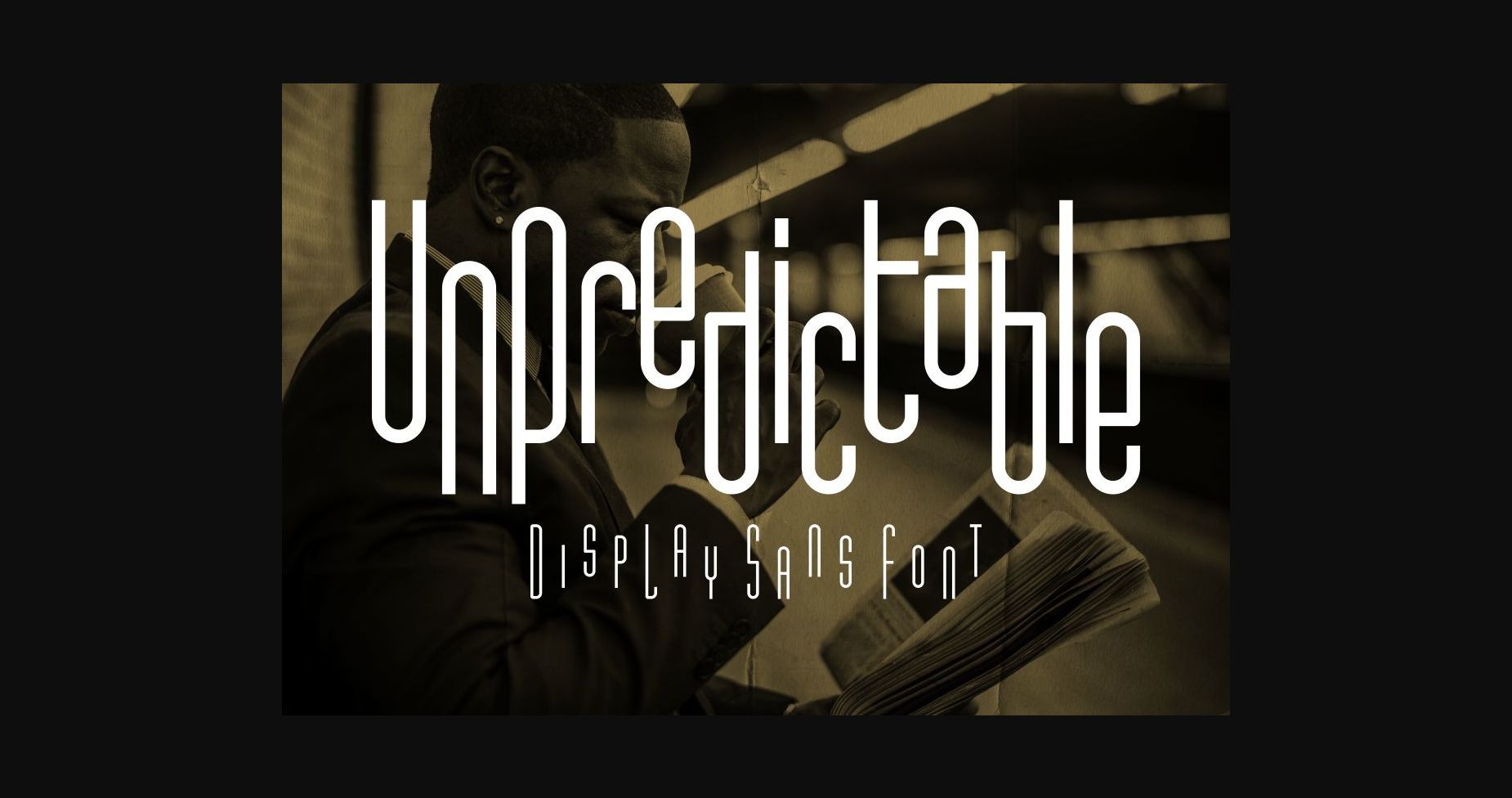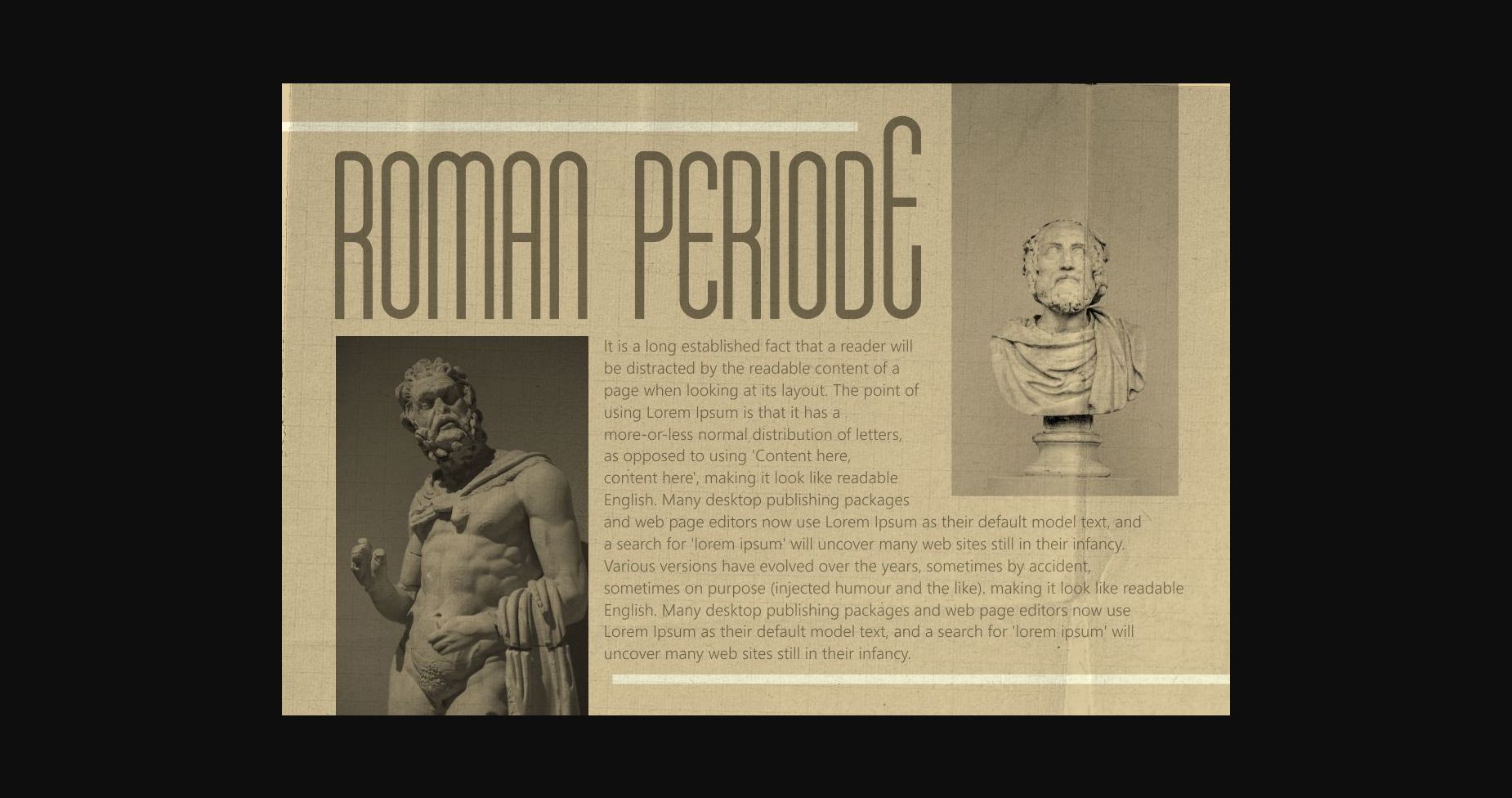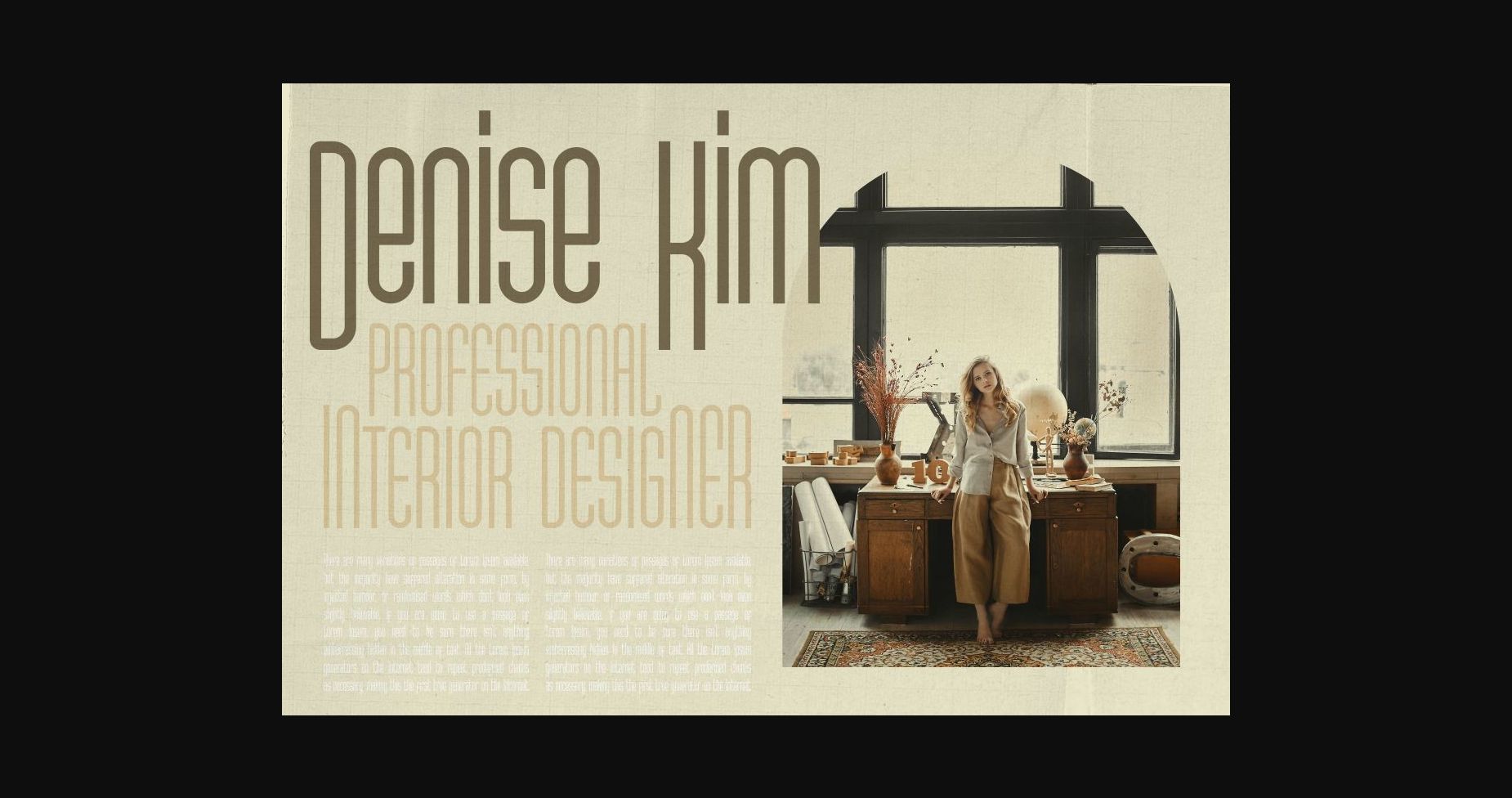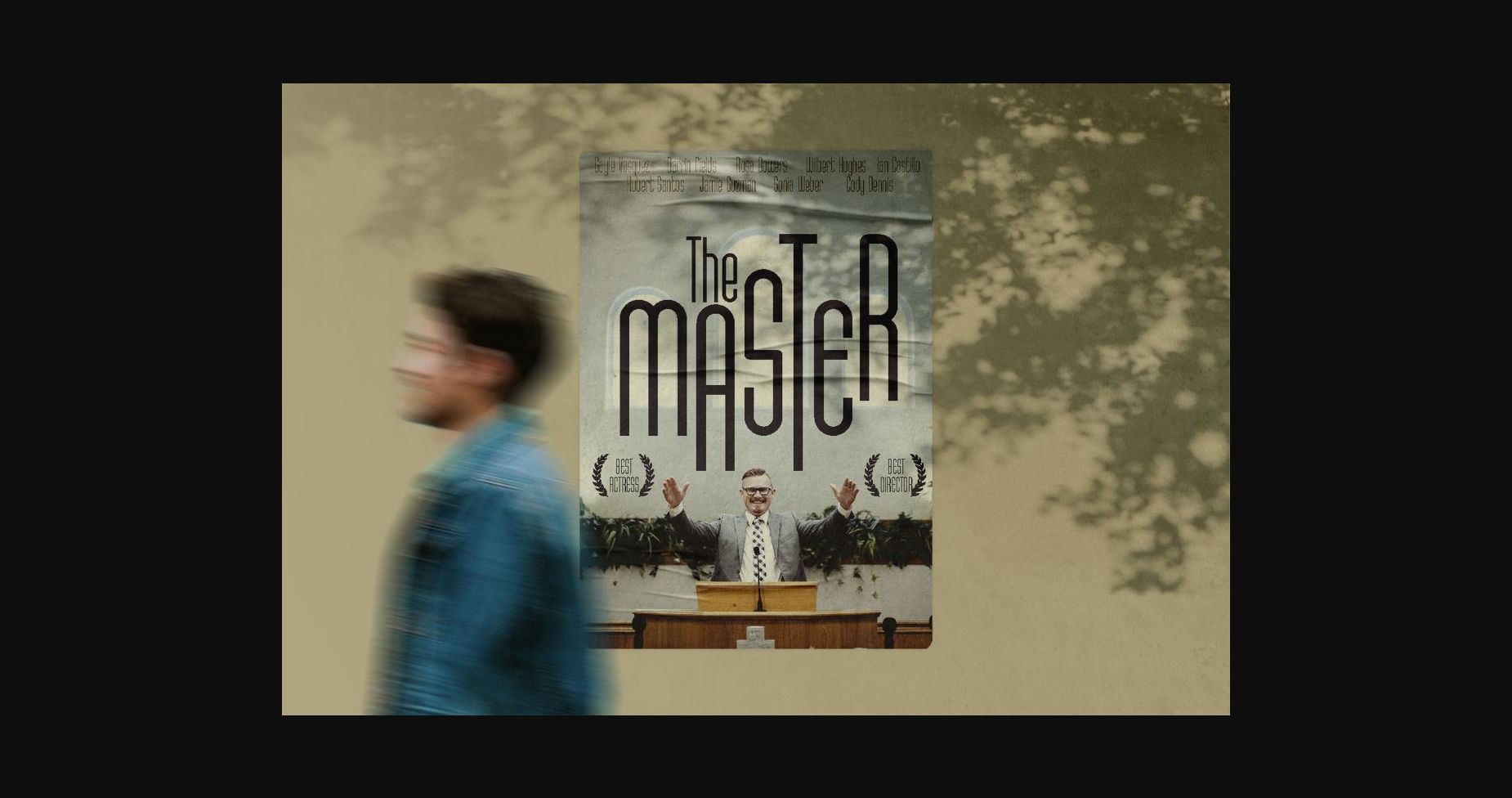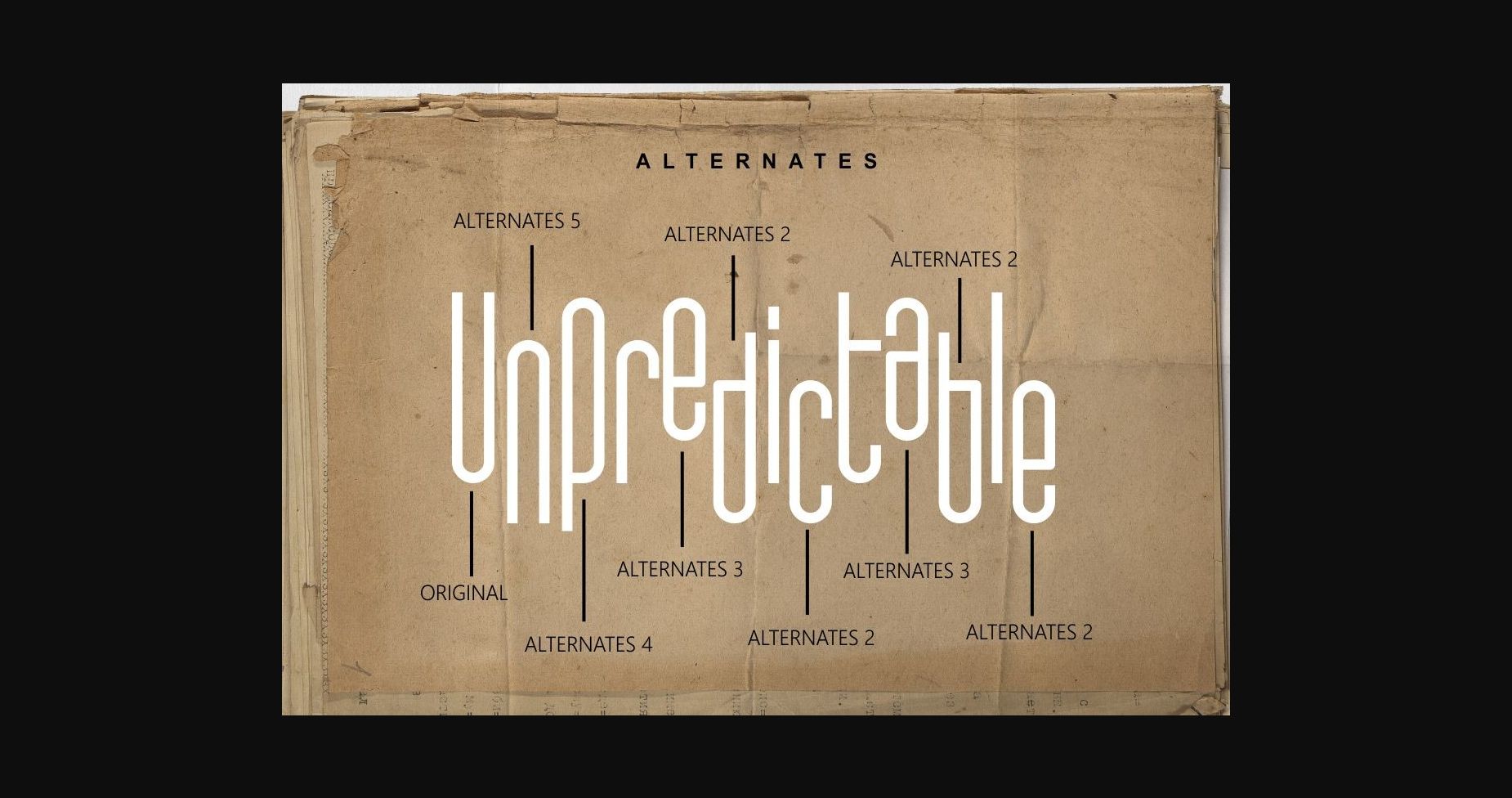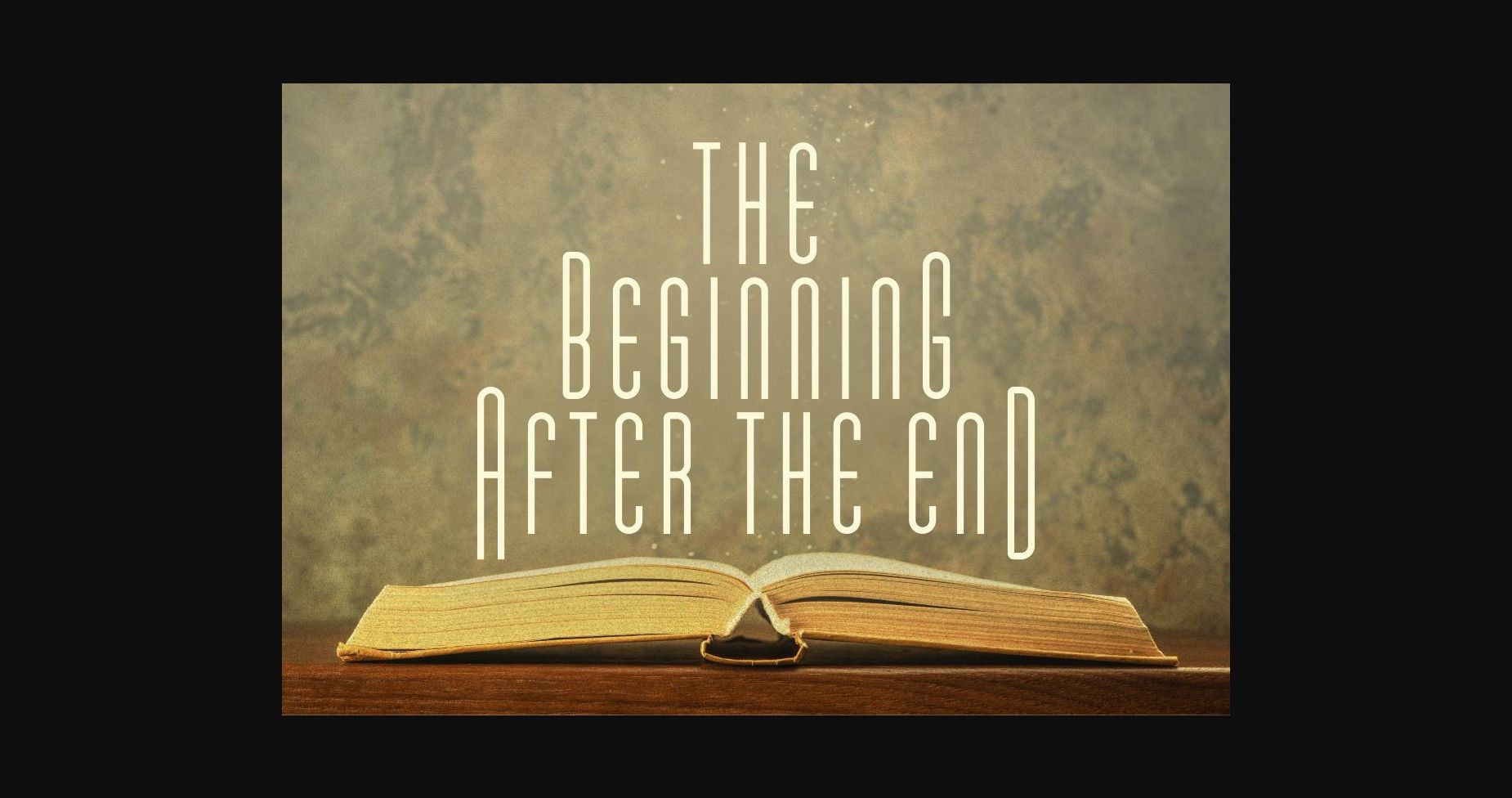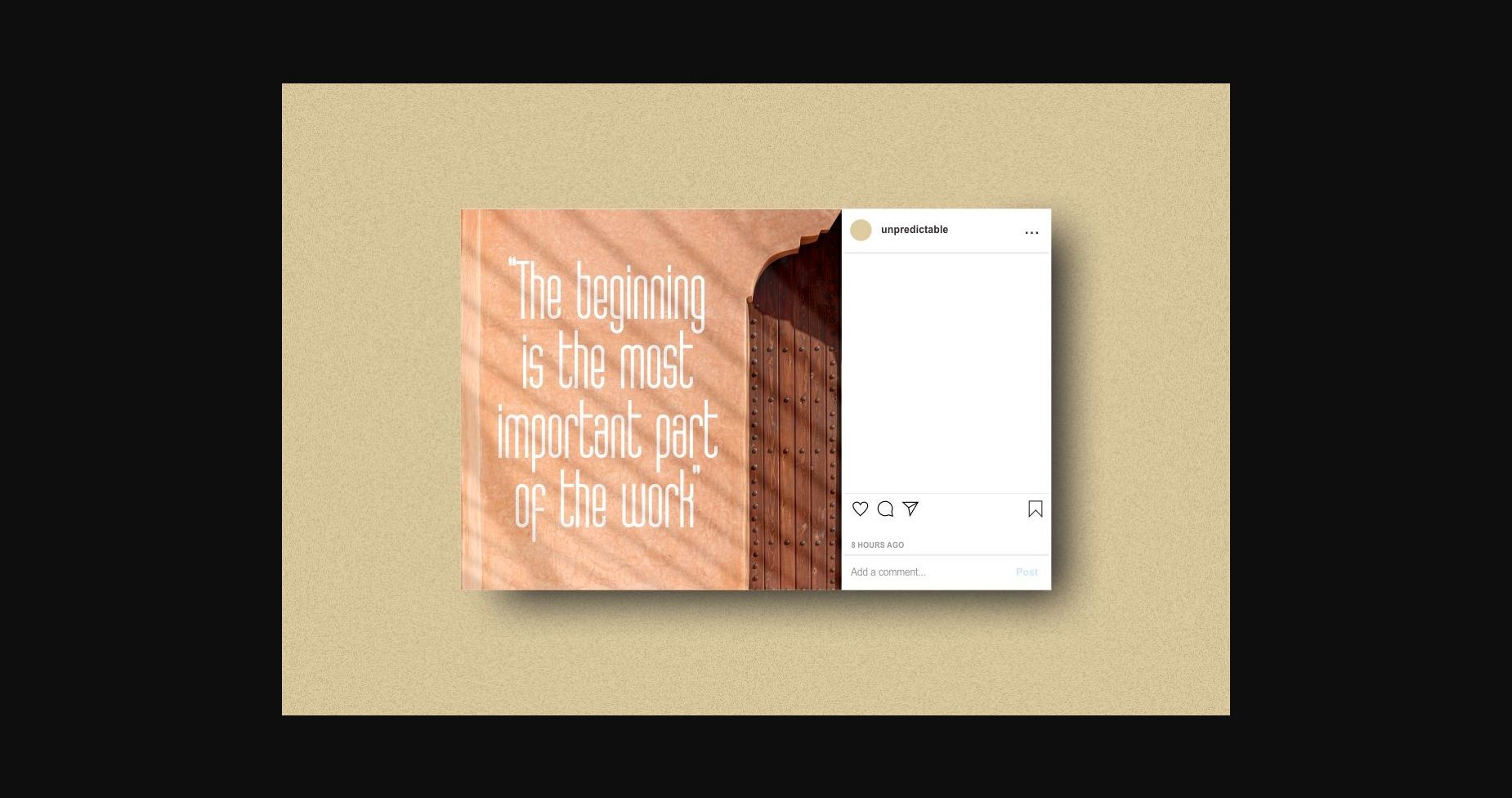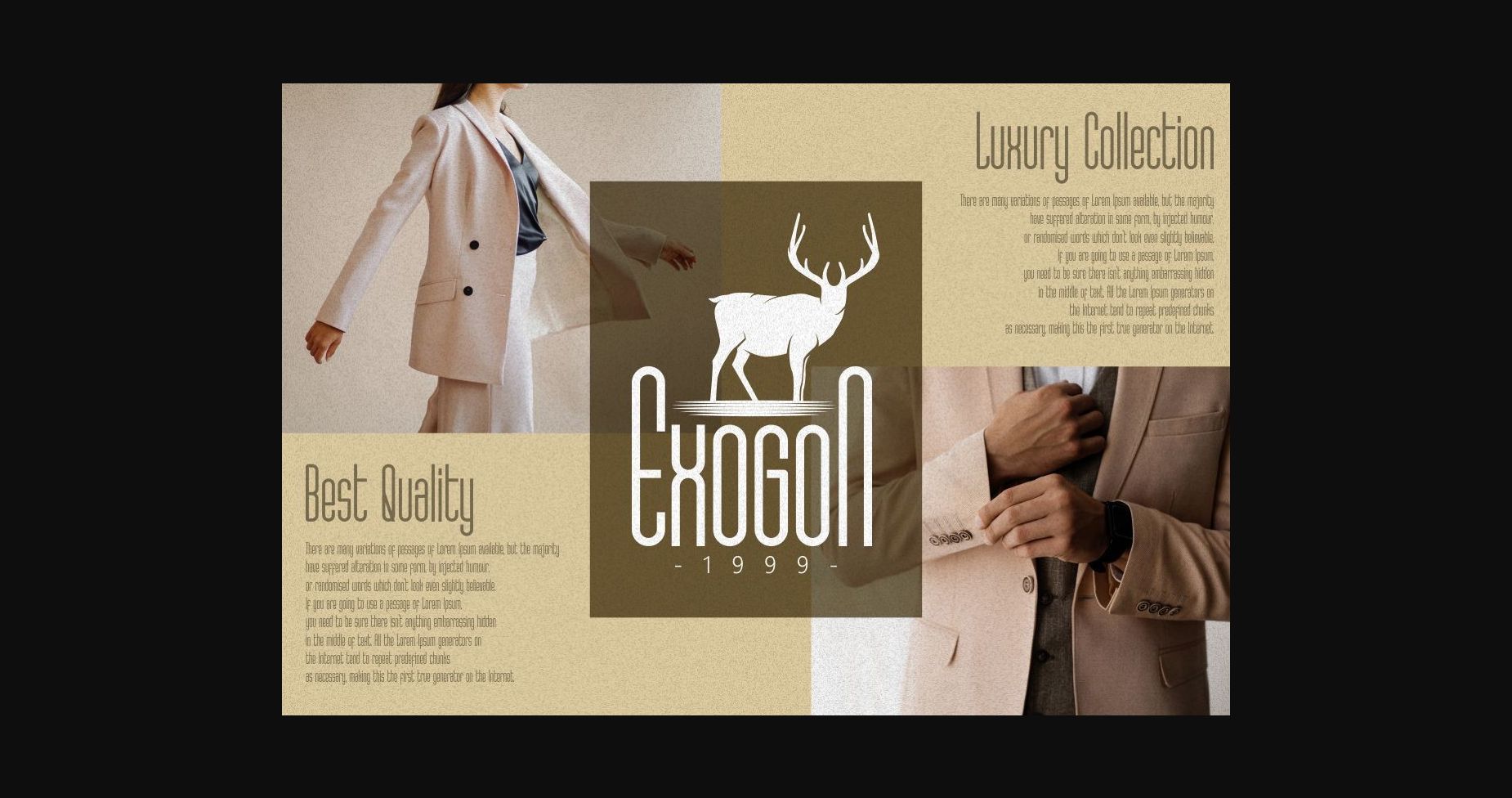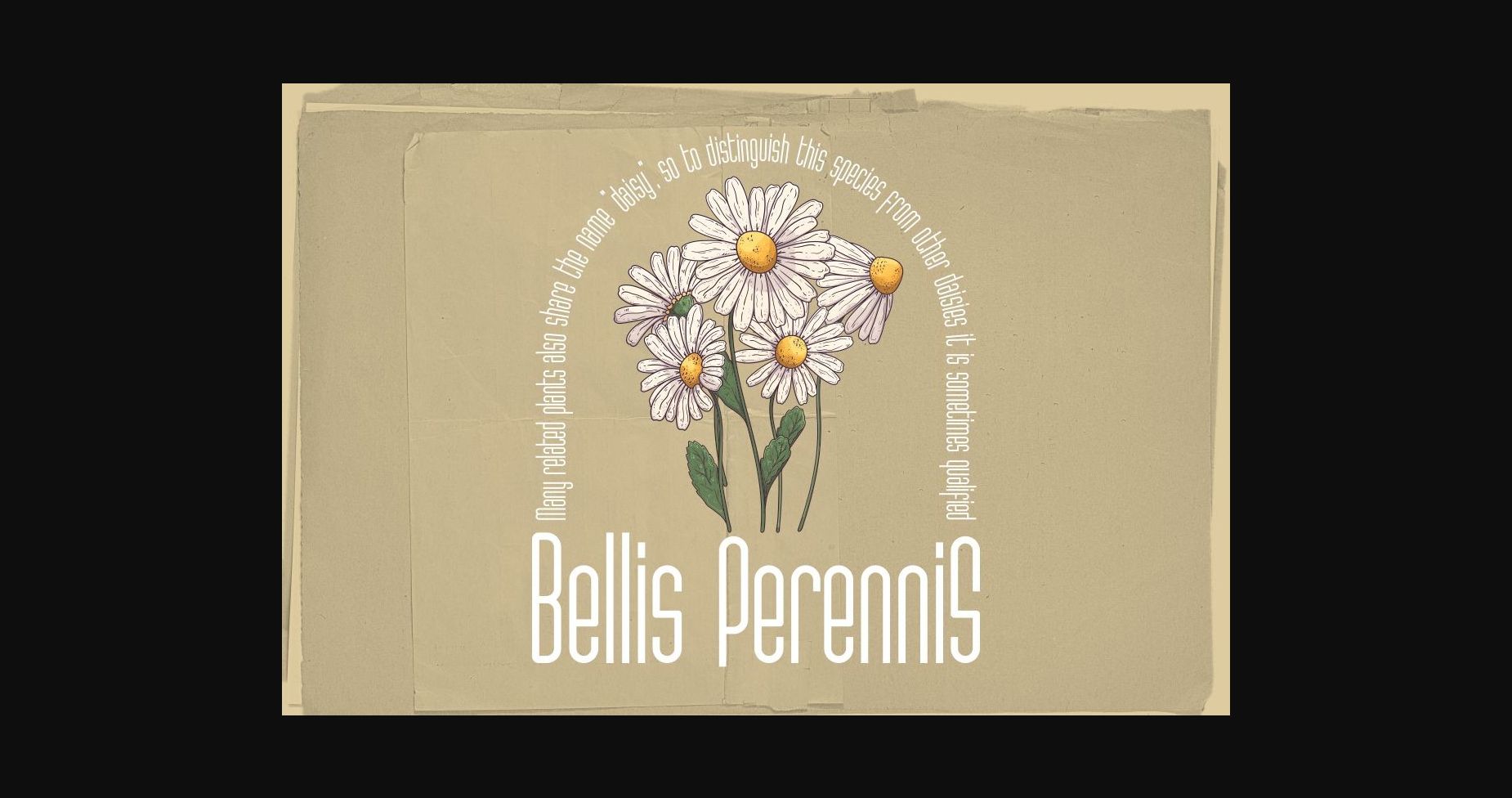
Unpredictable Font
About Unpredictable Font
Unpredictable is a cool, tall and thin sans serif font. It can easily be matched to an incredibly large set of projects, so add it to your creative ideas and notice how it makes them stand out! This font is PUA encoded which means you can access all of the glyphs and swashes with ease!